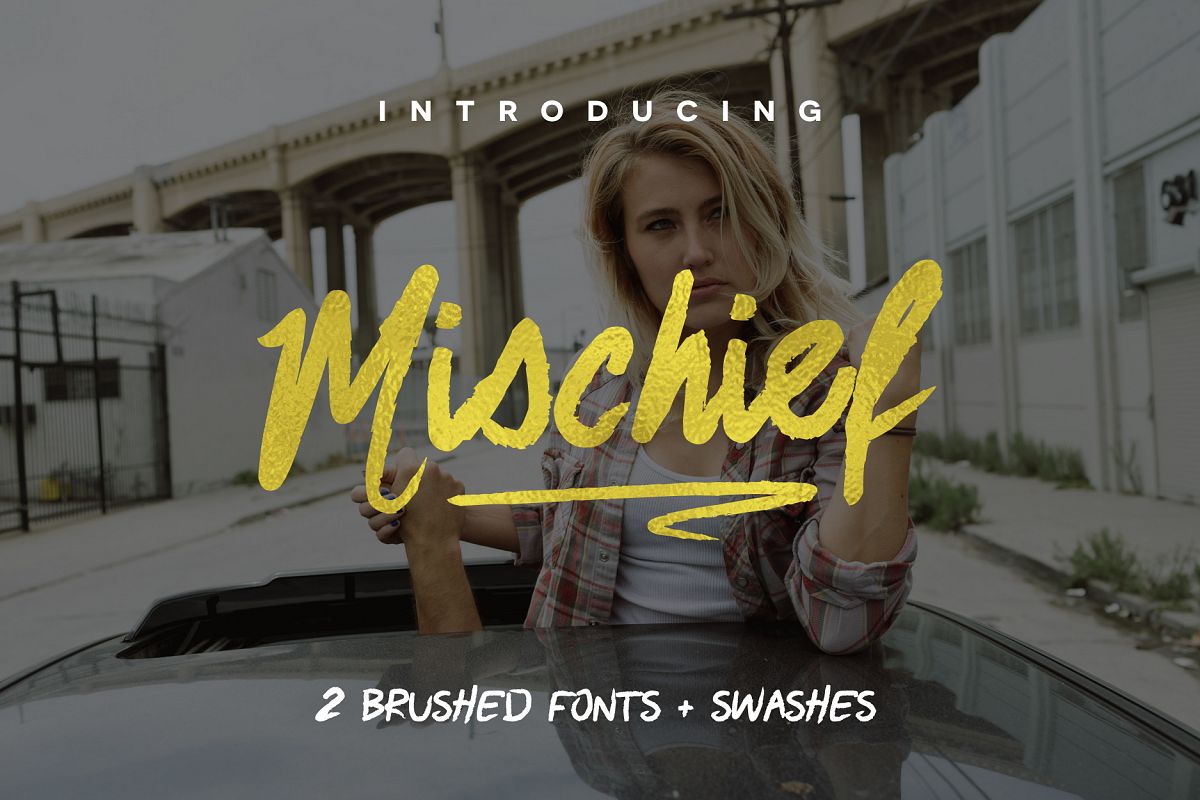
Mischief Font
Mischief is a rad and edgy handcrafted font with some sweet bonuses! It’s enlarged capital letters and roughened brush strokes give it a fun and stylish aesthetic perfect for typography, branding, logo design, invitations, and prints.
Use it in ink, watercolor, or gold foil based designs or on its own as a bold hand-painted masterpiece!
• Mischief Alternate (another marker/brush font w/ its own language support characters)
Add these bad boys to your designs and give it that organic hand-painted feel.